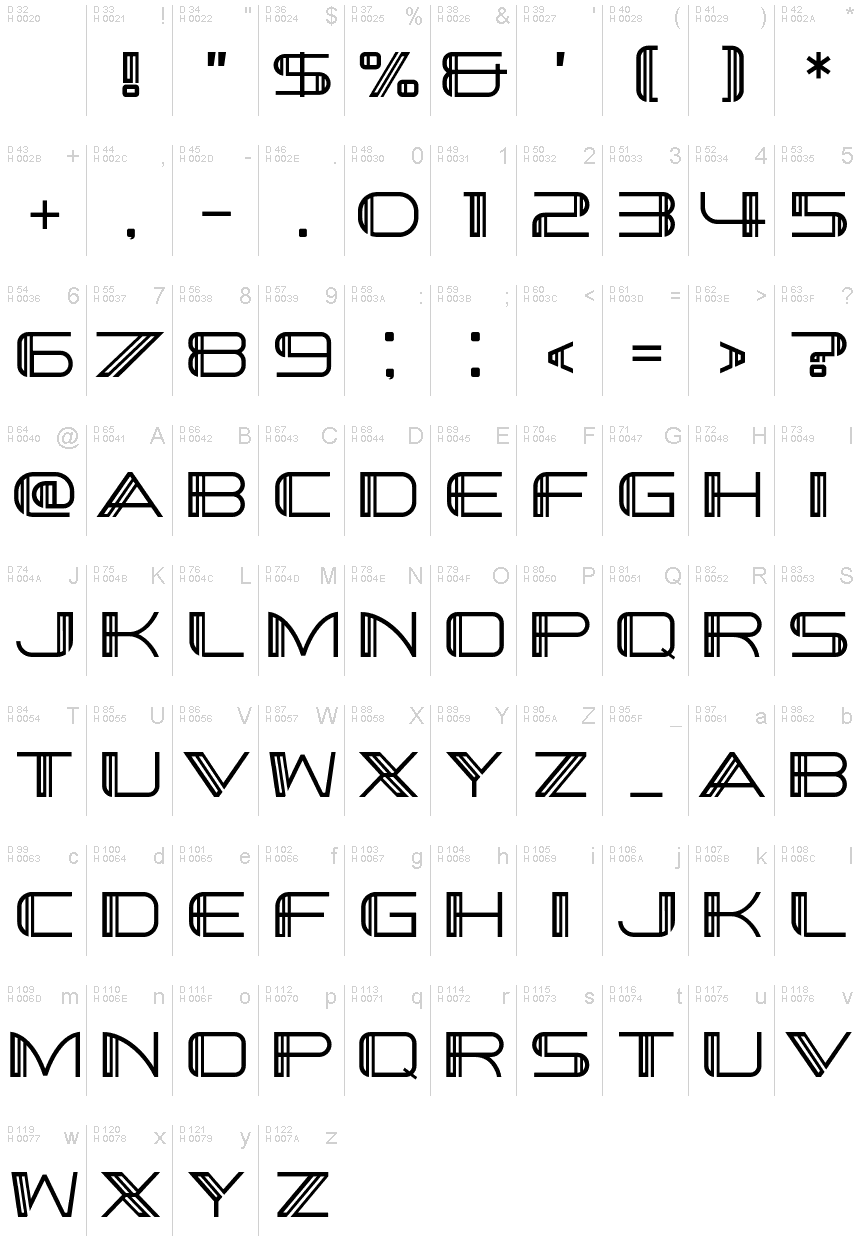
Scutum
Scutum, the retro display font designed by Khurasan, is a perfect choice for adding some vintage flair to your projects. Its semi-light weight and extra-expanded width create a unique look that's both bold and playful. Use Scutum in branding projects for businesses looking to evoke a sense of nostalgia or in advertising campaigns that need to stand out. The extra spacing in the letters makes it ideal for titles, headlines, and logos. Whether you're designing a poster or creating social media graphics, Scutum is sure to leave an impression on your audience.